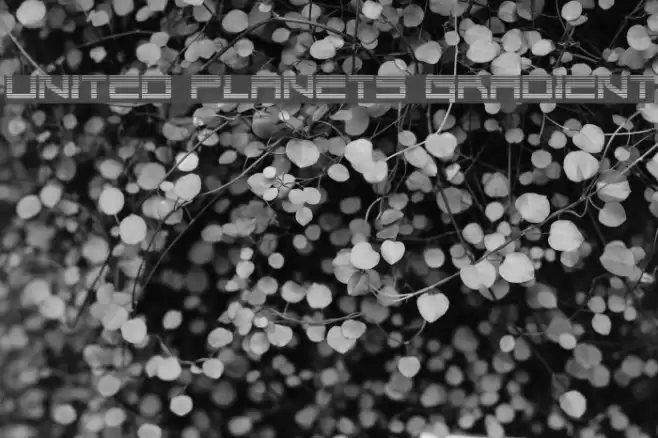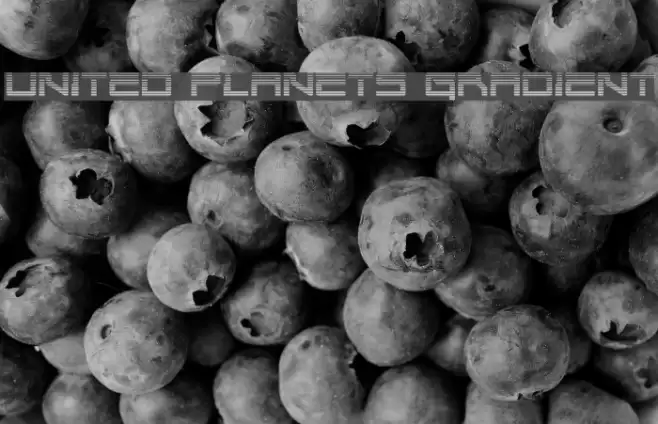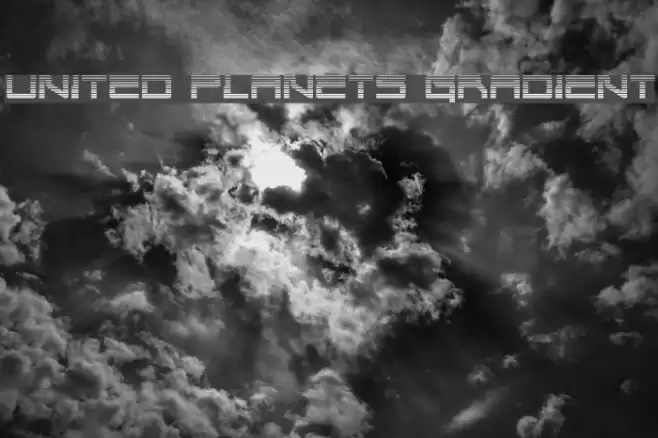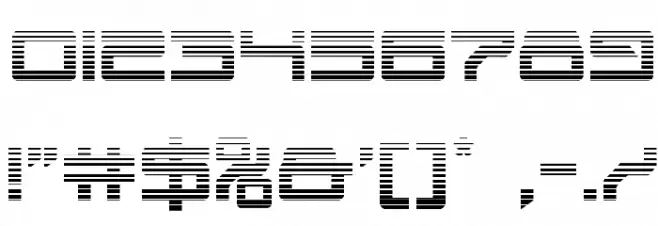
United Planets Gradient Font
United Planets Gradient Description
This font features a futuristic and digital aesthetic, characterized by its unique horizontal line pattern that creates a gradient effect within each character. The design is geometric and structured, with each letter and number appearing as if constructed from a series of parallel lines. This gives the font a distinct, modern look that is both eye-catching and innovative. The uppercase and lowercase letters share a consistent style, maintaining the same line-based structure. The special characters are also designed with the same attention to detail, ensuring a cohesive appearance across all elements. This font is ideal for projects that require a contemporary and technological feel, making it suitable for digital interfaces, tech branding, and modern advertising.
A futuristic font with a gradient line pattern, perfect for tech and digital designs from Uncategorized fonts.
- Proposed Projects: Ideal for tech branding, digital interfaces, modern advertising, and futuristic design projects.